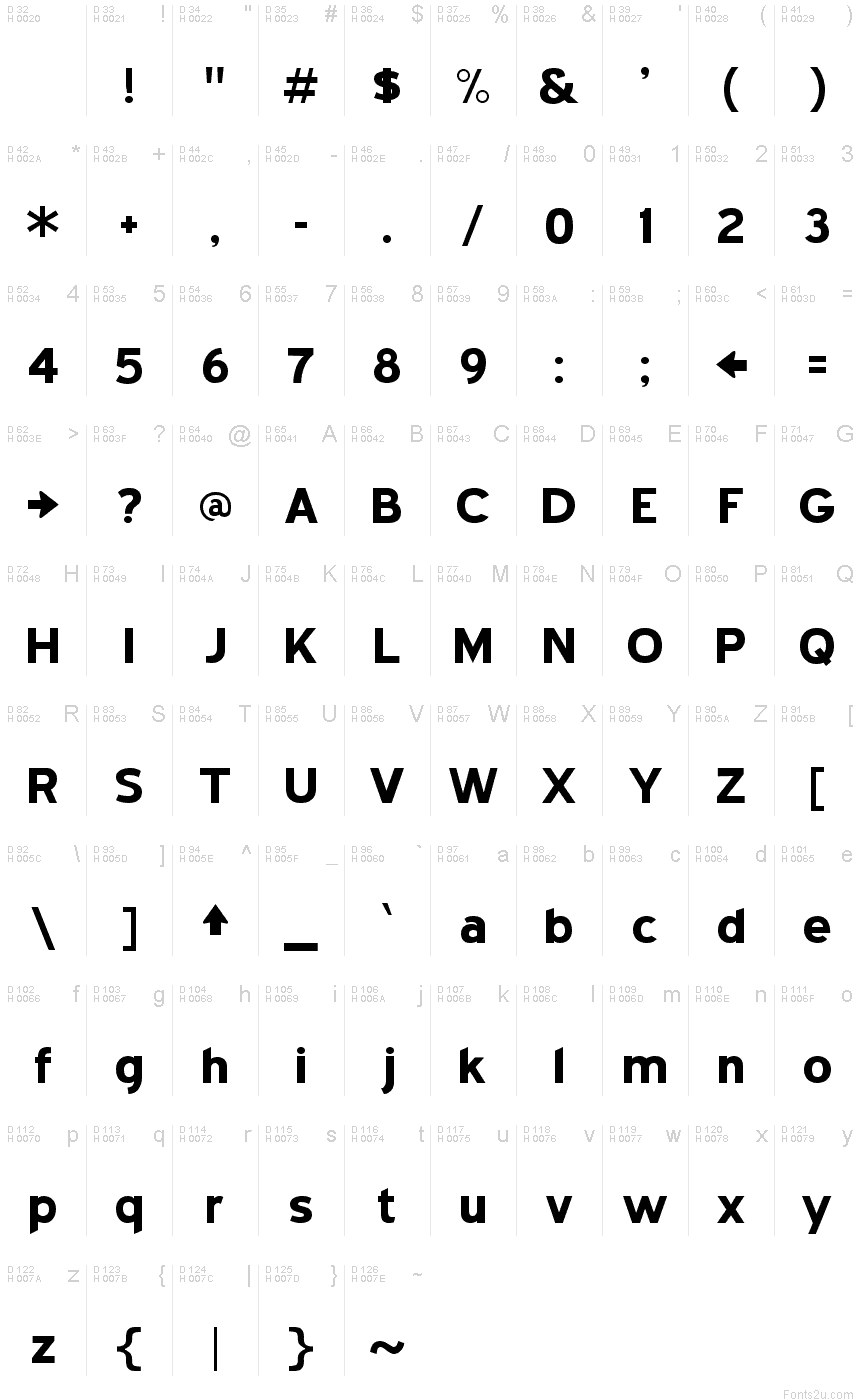
Blue Highway Bold
Blue Highway Bold font by Ray Larabie from the Blue Highway family is a free sans serif font, and its road-sign clarity shows up immediately. The strokes feel crisp and squared-off, with open shapes that stay readable when you shrink it down or view it at a glance. It keeps headlines steady and calm instead of shouty, even in heavy weights.
Using Blue Highway Bold, you’ll get reliable results on UI buttons, app headers, wayfinding and signage mockups, sports graphics, tech posters, map-style layouts, and product labels. This free font likes clean spacing-give it a little breathing room and it snaps into focus. Pair it with a simple, lighter sans serif for longer text to keep the hierarchy sharp.